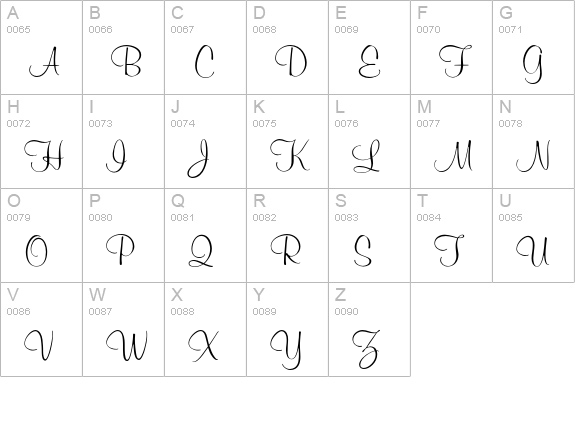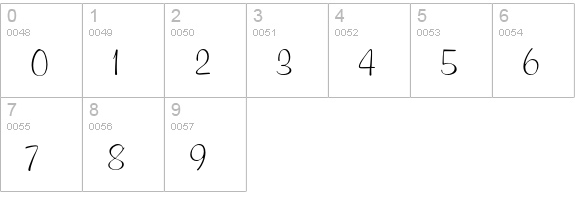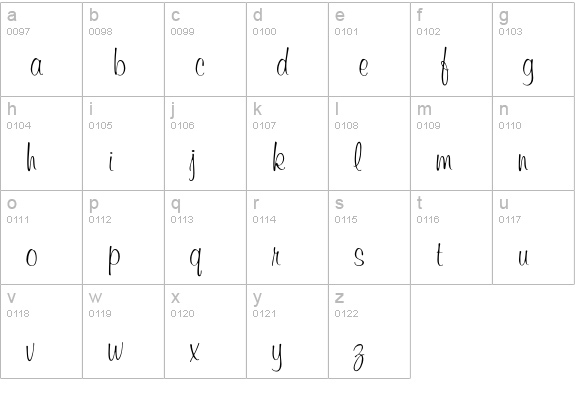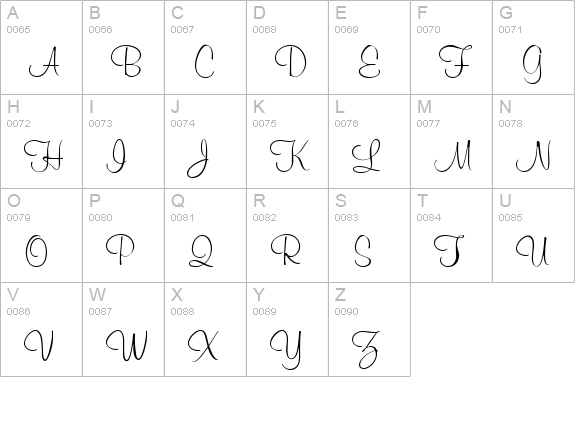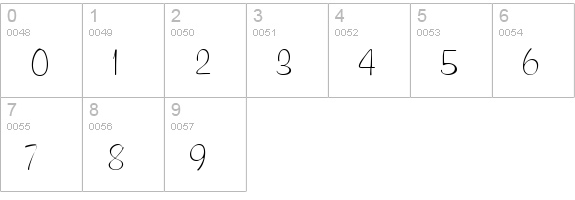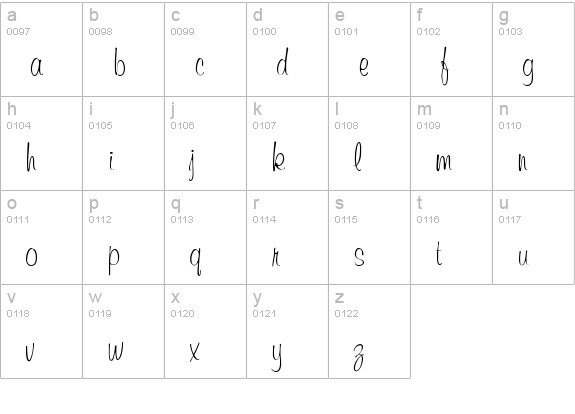
MurrayHill Font Details
MurrayHill font is a classic and elegant typeface that exudes sophistication and charm. Its timeless design makes it perfect for a wide range of projects, from wedding invitations to branding materials. The graceful curves and clean lines of MurrayHill font give any text a refined and polished look. One of the best things about MurrayHill font is that it is available for free download at FontsMarket.com. This means that you can easily access this beautiful font and incorporate it into your designs without any cost. Whether you are a professional designer or a hobbyist, MurrayHill font is a versatile and stylish option that will elevate your projects.